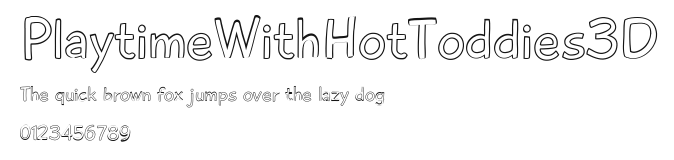
PlaytimeWithHotToddies3D Preview
• Font Name: PlaytimeWithHotToddies3D
• Font ID: PlaytimeWithHotToddies3D
• Full Font Name: PlaytimeWithHotToddies3D
• PostScript Name: PlaytimeWithHotToddies3D
About PlaytimeWithHotToddies3D.ttf
PlaytimeWithHotToddies3D.ttf is a modern, elegant sans-serif font designed for ultimate readability and visual harmony. Perfect for branding, headlines, web design, and print materials.